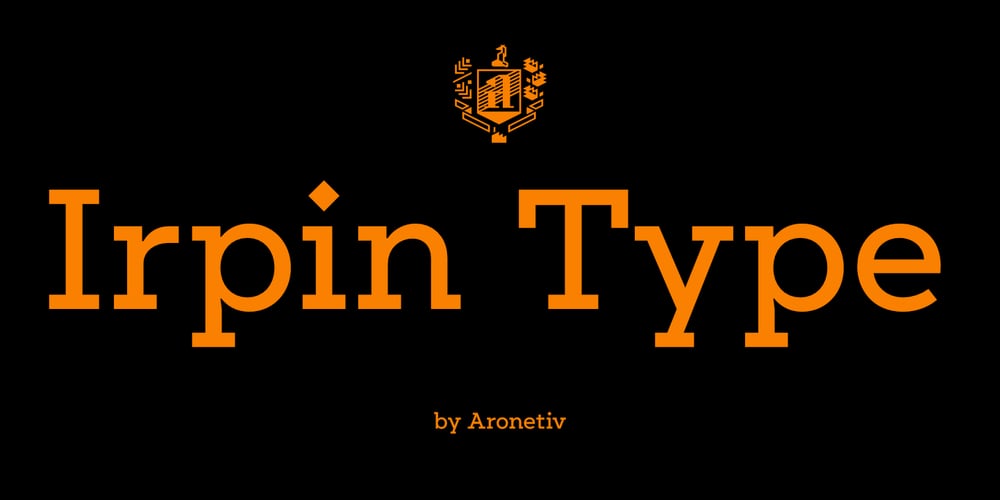
Irpin Type Font Family was designed by Aleksey Popovtsev and published by Aronetiv. Irpin Type contains 6 styles and family package options. Irpin Type is an original font dedicated to the city of Irpin. Intended for everyday use, for books, logos, corporate style. It can also be used in posters and presentations where a confident character is needed.This font suits a large size, but it has good readability even in a small one. This is a modern slab serif with geometric shapes, inspired by the Ukrainian avant-garde of the 20th century. It has characteristic alternates for “G”, “a”, “u”, and “&”.Irpin is a city of Ukraine in the suburbs of Kyiv. On March 24, 2022, by the Decree of the President of Ukraine in order to celebrate the feat, mass heroism and resilience of citizens, shown in the defense of their cities during the repulsion of the armed aggression of the Russian Federation against Ukraine, the city was awarded the honorary title “Hero City of Ukraine”